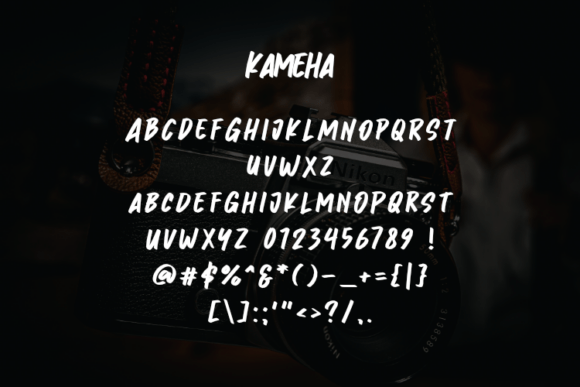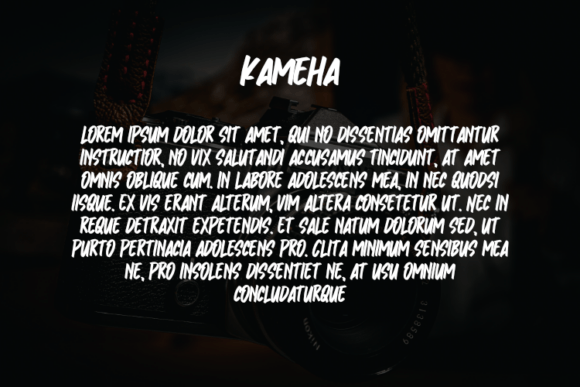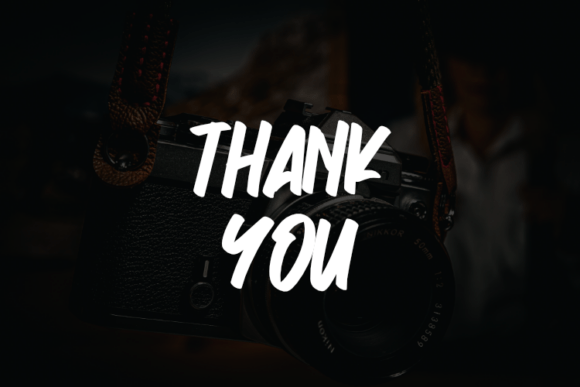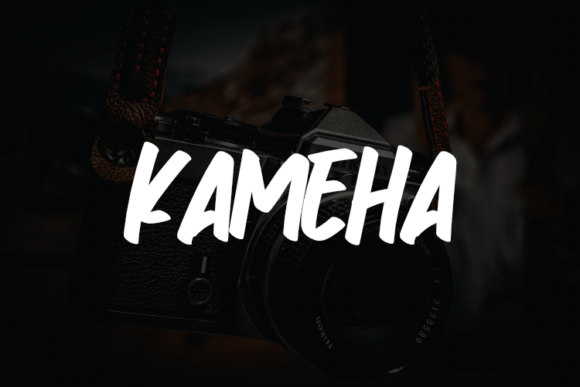
Introduction to Kameha Font
Introducing Kameha, a versatile font tailored for your creative instincts.
Fashioned specifically for apparel design like t-shirts and other merchandise, its flexibility fits any design vision and is compatible with all software Kameha provides accessibility across both OTF and TTF formats, ensuring seamless integration into your design process.
Kameha Font offers exceptional quality and versatility, making it a valuable addition to your design toolkit. Whether you’re creating for personal projects or commercial use, Kameha Font delivers professional results.